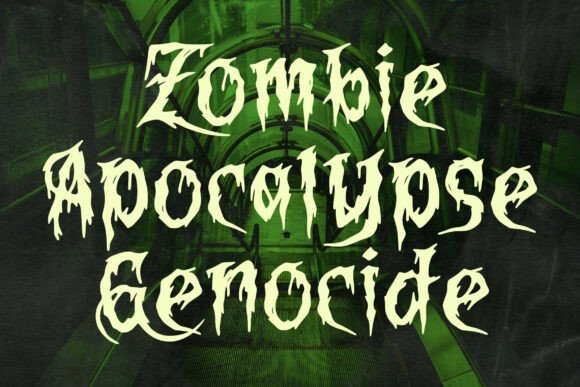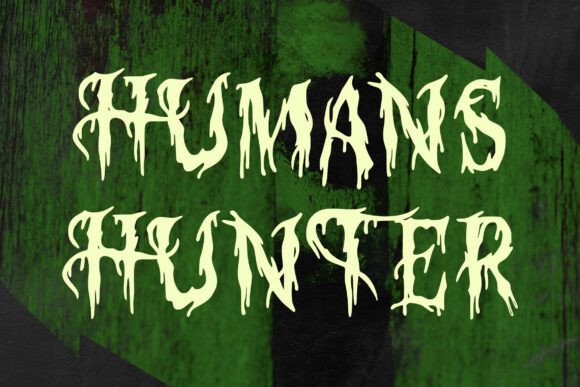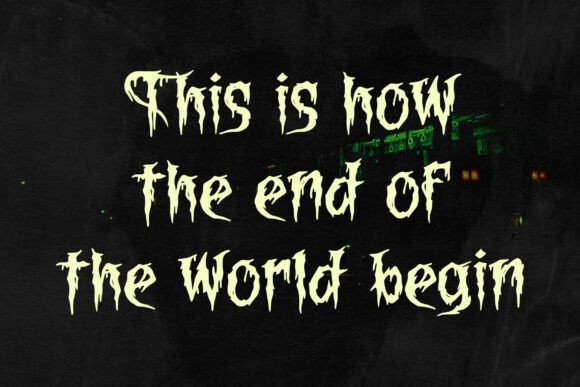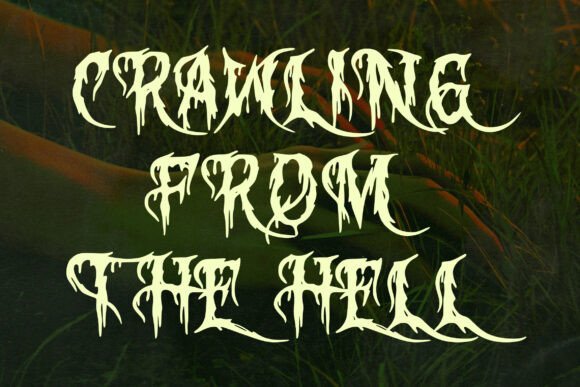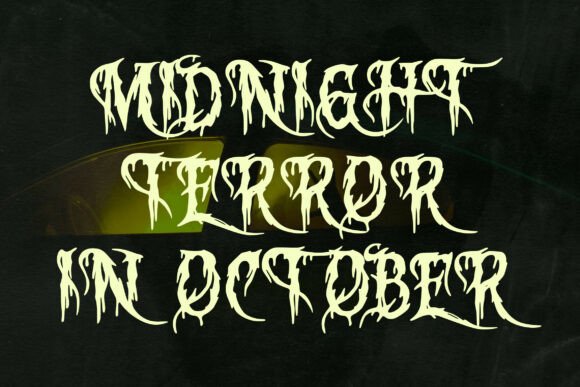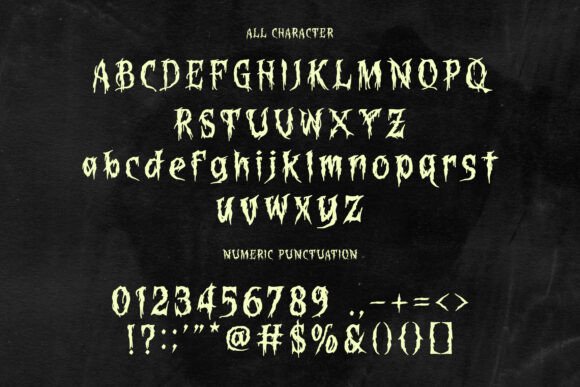
Unleash the Horror: Introducing Bloody Corpse Font
As a designer, there’s nothing quite like the thrill of creating a project that sends chills down the spine of your audience. It’s the moment when you know you’ve perfectly captured the essence of fear and suspense, and Bloody Corpse Font is the perfect tool to help you achieve just that.
Bloody Corpse Font is a display font that’s designed to evoke a sense of dread and horror, with its chilling nuances and blood-curdling effects. Whether you’re working on a horror film poster, a Halloween-centric creation, or a spine-tingling survival game, this font is sure to captivate and pique the curiosity of your audience.
With its audacious lines and robust letter forms, Bloody Corpse Font is a valuable addition to any designer’s toolkit. It’s the perfect way to add an element of horror and theatrical drama to your projects, and its immediate intrigue is sure to leave a lasting impression.
- Unique Characteristics: The font’s distinctive design features a bold, blood-stained appearance, with a mix of serif and sans-serif elements, giving it a unique and eye-catching look.
- Font Width: The Bloody Corpse Font has an average font width, making it suitable for use in a variety of contexts, from body text to headings and titles.
Bloody Corpse Font Review
Overall, I think the Bloody Corpse Font is a unique and attention-grabbing font that can be used for various design purposes. Here’s what I like about it:
- ✨ The font’s bold and distressed design is perfect for horror-themed projects, like movie posters or spooky websites.
- ✨ The font’s versatility allows it to be used in various contexts, from horror to punk rock aesthetics.
- ✨ The font’s bold lines and sharp edges make it easy to read, even at small font sizes.
- ⚠️ The font may be too intense for certain design projects, like corporate websites or children’s books.
- ⚠️ The font’s distressed design may not be suitable for projects that require a clean and professional look.
Overall, I think the Bloody Corpse Font is a great choice for designers who want to add a touch of edginess to their projects. While it may not be suitable for every design context, it’s a great option for those who want to make a statement.
The Bloody Corpse Font is perfect for horror-themed designs, such as posters, flyers, and social media graphics. It can also be used in more general design applications, such as adding a touch of drama to a presentation or document.